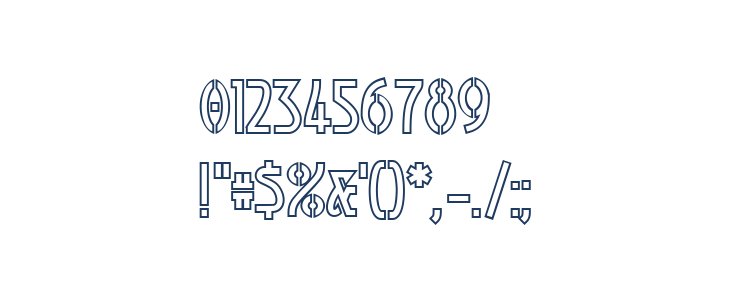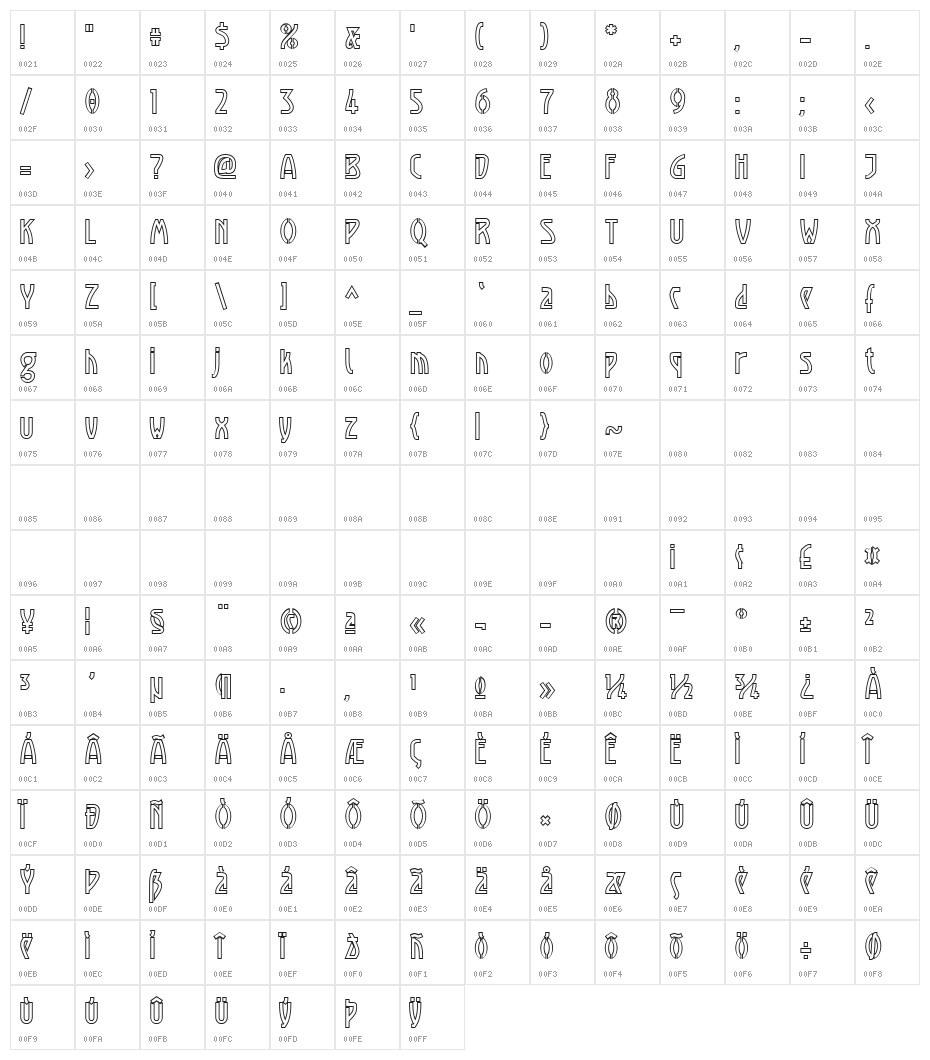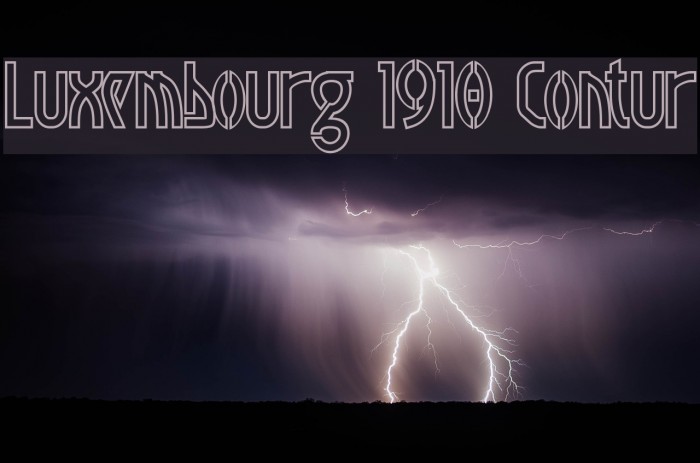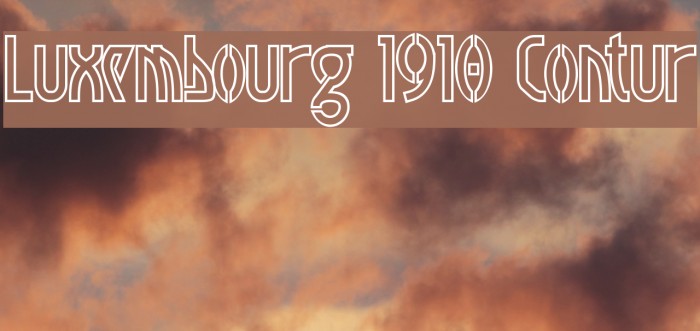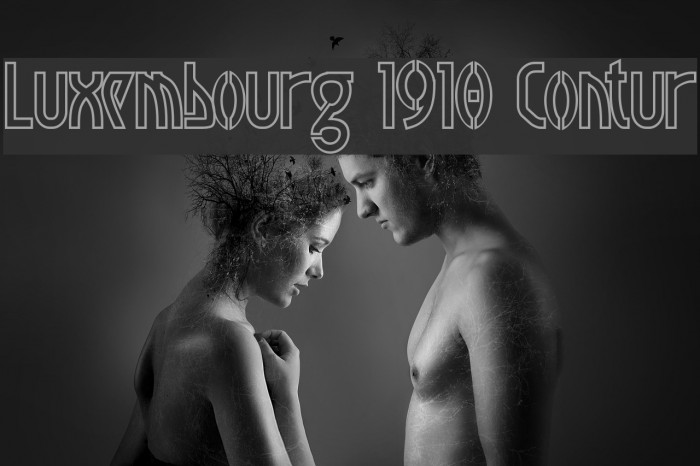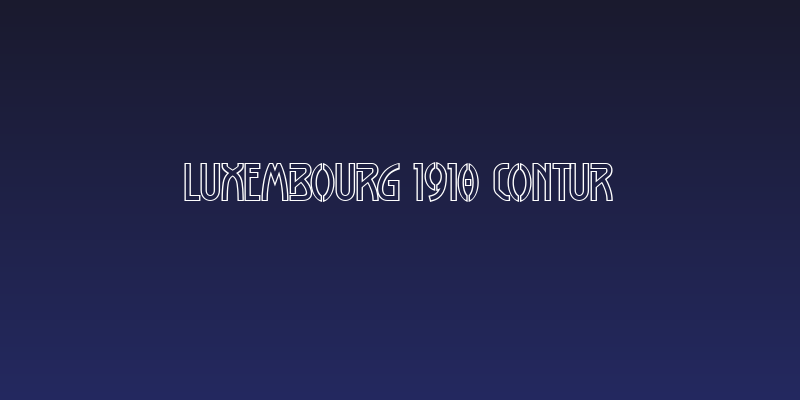
Luxembourg 1910 Contur Font
Luxembourg 1910 Contur Description
This font features a unique, geometric design with an outline style that gives it a modern and futuristic appearance. The characters are constructed with clean, sharp lines and a consistent width, creating a uniform look across both uppercase and lowercase letters. The numbers and special characters maintain this geometric consistency, making the font suitable for a variety of design applications. The overall style is decorative, with a distinct architectural feel that sets it apart from more traditional fonts.
| Proposed Projects | Ideal for branding, posters, and digital artwork where a modern, eye-catching font is needed. |